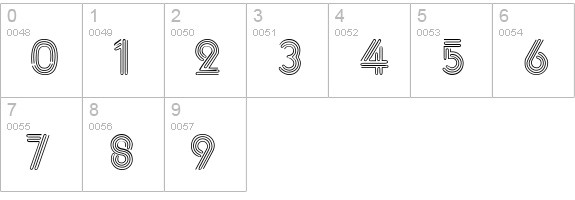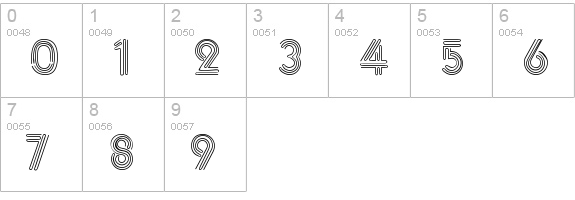
Glass TubesFour Font Details
Glass TubesFour font is a unique and eye-catching typeface that brings a modern and sleek touch to any design project. With its clean lines and elegant curves, this font is perfect for adding a futuristic and sophisticated look to your work. What's even better is that Glass TubesFour font is completely free to download at FontsMarket.com. This means you can easily enhance your designs with this stylish font without breaking the bank. Whether you're working on a website, poster, logo, or any other creative project, Glass TubesFour font is sure to make a statement and elevate your design to the next level. Download it now and unleash your creativity!